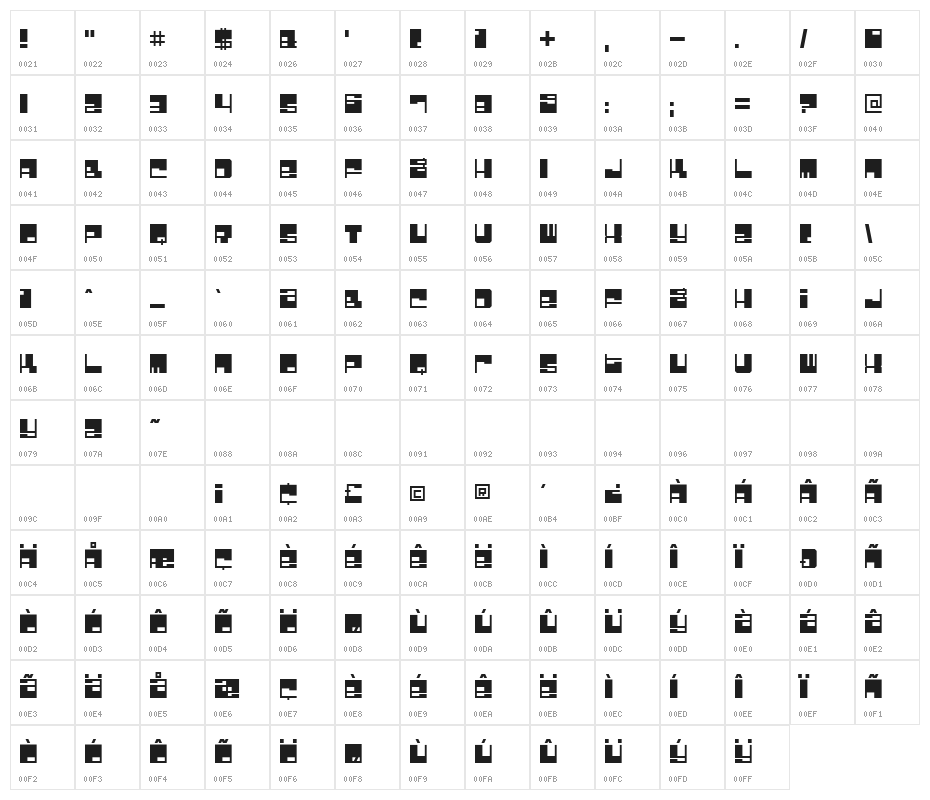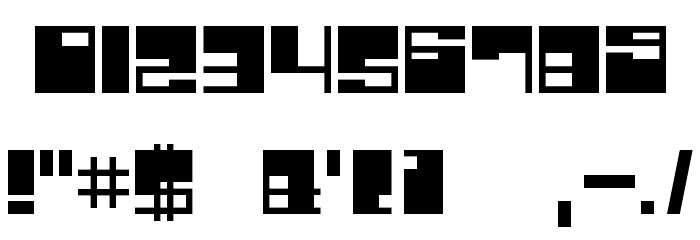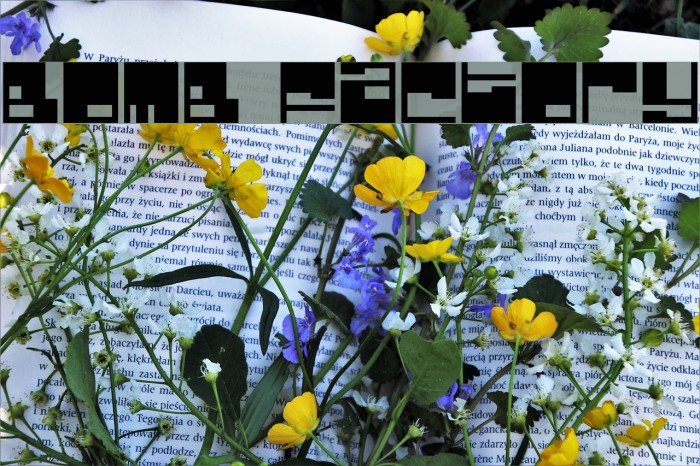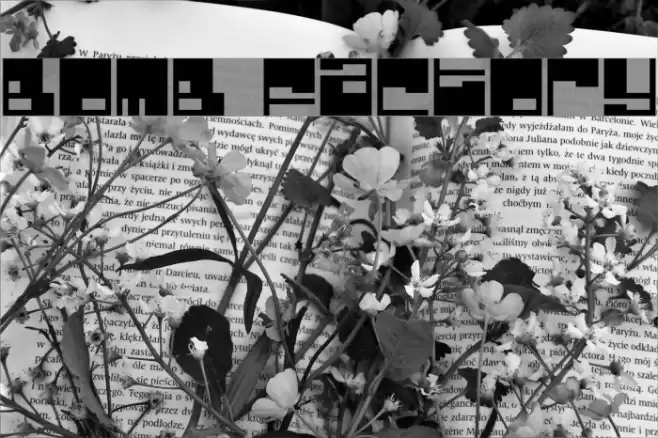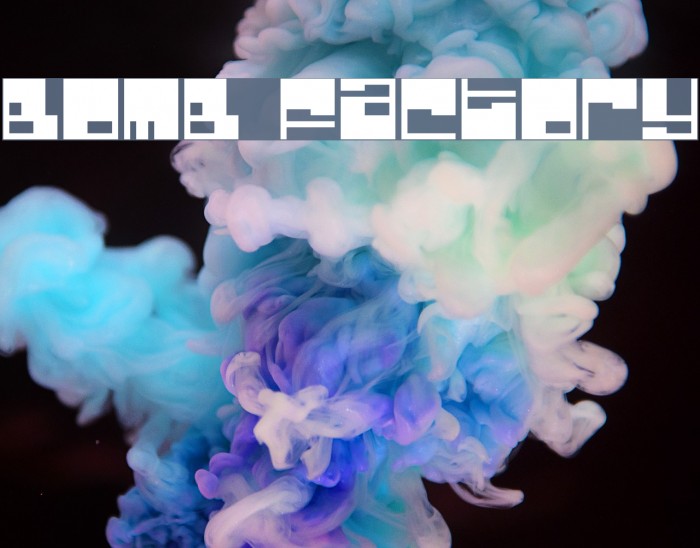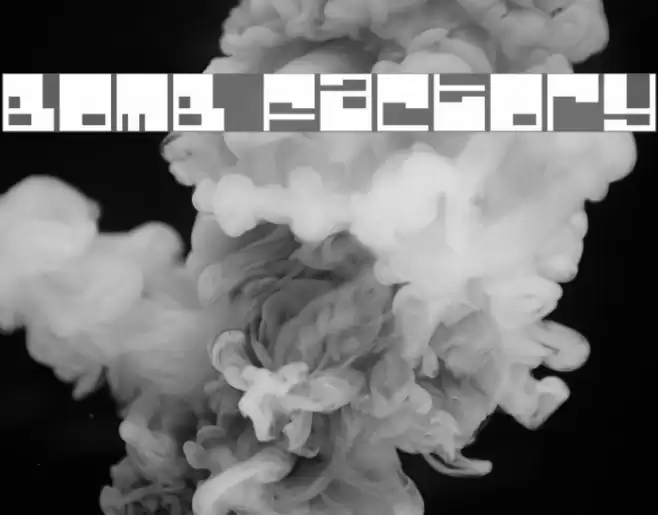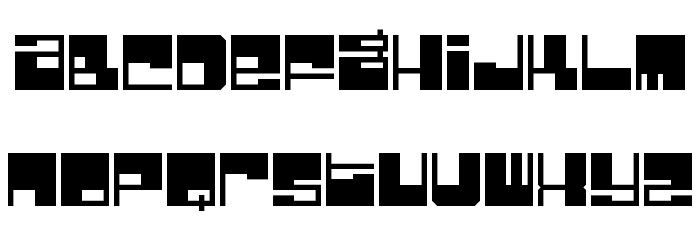
Bomb Factory Font
Bomb Factory Description
This font features a bold, geometric design with a distinctly modern and industrial feel. The characters are constructed with sharp angles and blocky shapes, giving it a strong, impactful presence. The uppercase and lowercase letters maintain a consistent style, with minimal variation in stroke width, contributing to a uniform appearance. The numerals and special characters follow the same design principles, ensuring cohesiveness across all glyphs. The font's unique style makes it suitable for projects that require a futuristic or tech-inspired aesthetic.
| Proposed Projects | Ideal for tech branding, video game titles, posters, and futuristic designs. |